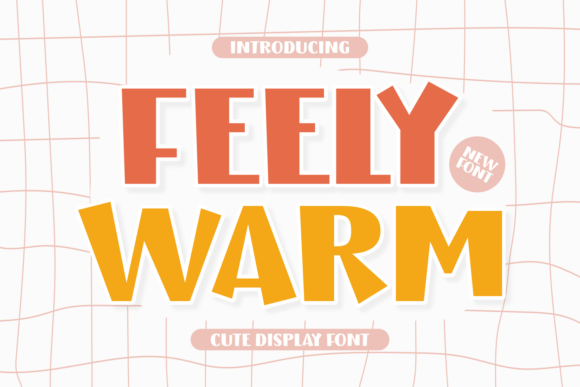
Introducing Feely Warm Font: The Ultimate Display Font for Playful Designs
In the world of typography, a font can make all the difference in the success of a design project. If you’re looking for a font that radiates joy, cheer, and charm, look no further than Feely Warm Font. This lovingly crafted display font is perfect for creating playful headlines, comics, and designs that require a unique and trendy touch.
What Makes Feely Warm Font Special?
- Eye-catching Cartoon Style: Feely Warm Font boasts an impressive and authentic cartoon style that is sure to captivate audiences of all ages.
- Chunky Letters: The font’s chunky letters are perfect for creating playful headlines, titles, and text that require a bold and cheerful touch.
- Multilingual: Feely Warm Font is not just cute and playful, it’s also multilingual, making it perfect for designing projects that require text in multiple languages.
- Clean and Lovely Lines: The font’s clean and lovely lines make it perfect for Eastern European-themed designs, bright summer feels, or enchanting Easter creations.
Endless Design Possibilities with Feely Warm Font
Feely Warm Font is a multifunctional font that can be used in a variety of design projects, including:
- Book Covers: Create a fresh and eye-catching book cover with Feely Warm Font that’s sure to grab the attention of potential readers.
- T-Shirts and Apparel: Design quirky and fun t-shirts, hoodies, and other apparel with Feely Warm Font that’s perfect for casual wear.
- Kids’ Products: Create fun and playful kids’ products, such as toys, stickers, and coloring books, with Feely Warm Font that’s sure to delight children.
- Greeting Cards and Invitations: Add an exceptional edge to greeting cards, invitations, and other paper products with Feely Warm Font.
- Branding and Design Work: Use Feely Warm Font to bring a unique and trendy touch to your branding and design work, such as logos, brochures, and business cards.
The Benefits of Using Feely Warm Font
Feely Warm Font offers a range of benefits that make it the perfect choice for designers and crafters, including:
- Easy to Read: The font’s chunky letters and clean lines make it easy to read, even at small sizes.
- Highly Versatile: Feely Warm Font can be used in a variety of design projects, from playful headlines to branding and design work.
- Unique and Trendy: The font’s unique and trendy design makes it perfect for designers who want to create fresh and eye-catching designs.
- Time-Saving: With Feely Warm Font, you can create professional-looking designs in no time, saving you time and effort.
Design Tips for Using Feely Warm Font
Here are some design tips to help you get the most out of Feely Warm Font:
- Pair with Other Fonts: Pair Feely Warm Font with other fonts to create a unique and eye-catching design.
- Experiment with Colors: Experiment with different colors and textures to add depth and interest to your design.
- Use for Headlines: Use Feely Warm Font for headlines and titles to create a bold and cheerful touch.
- Keep it Simple: Keep your design simple and clean to let Feely Warm Font shine.
In conclusion, Feely Warm Font is a versatile and playful display font that’s perfect for designers and crafters who want to create fresh and eye-catching designs. With its chunky letters, clean lines, and multilingual support, Feely Warm Font is the perfect choice for a variety of design projects, from playful headlines to branding and design work. So why wait? Download Feely Warm Font today and experience the vivid, fresh appeal of this irresistible font!